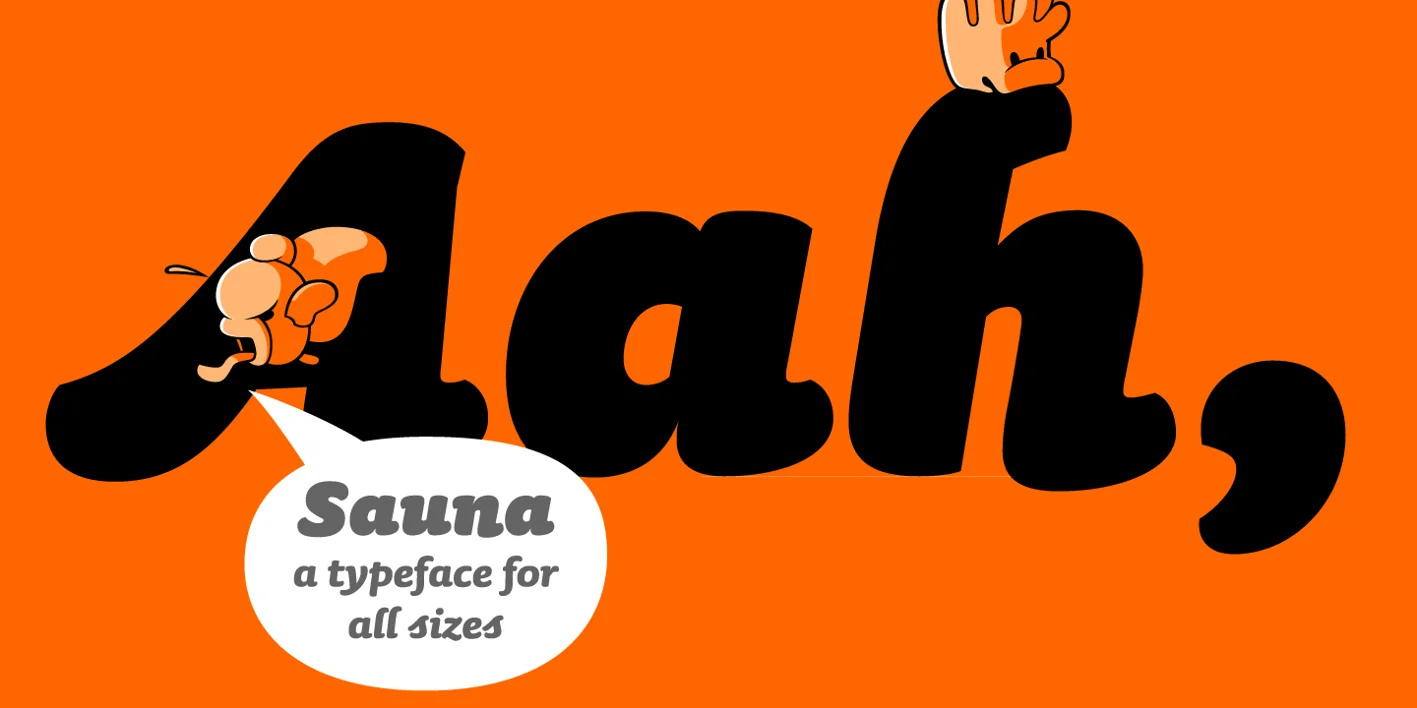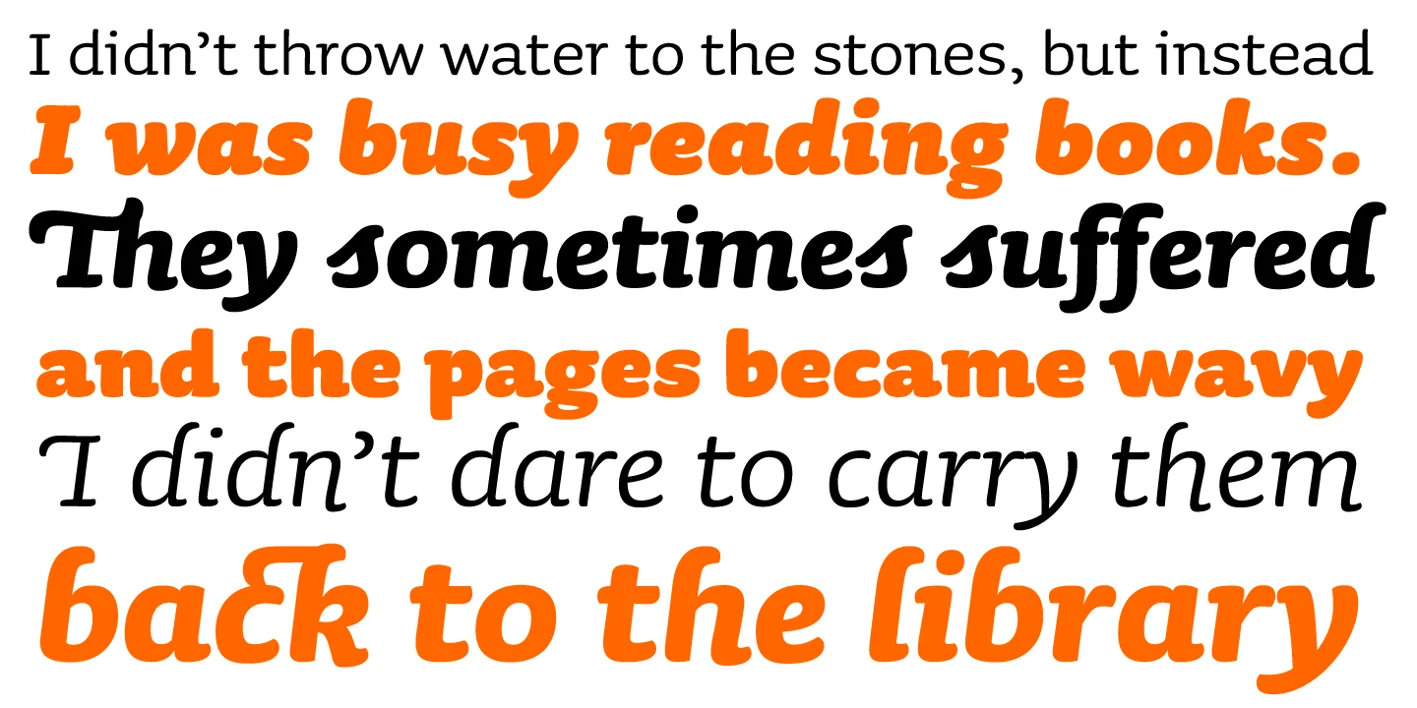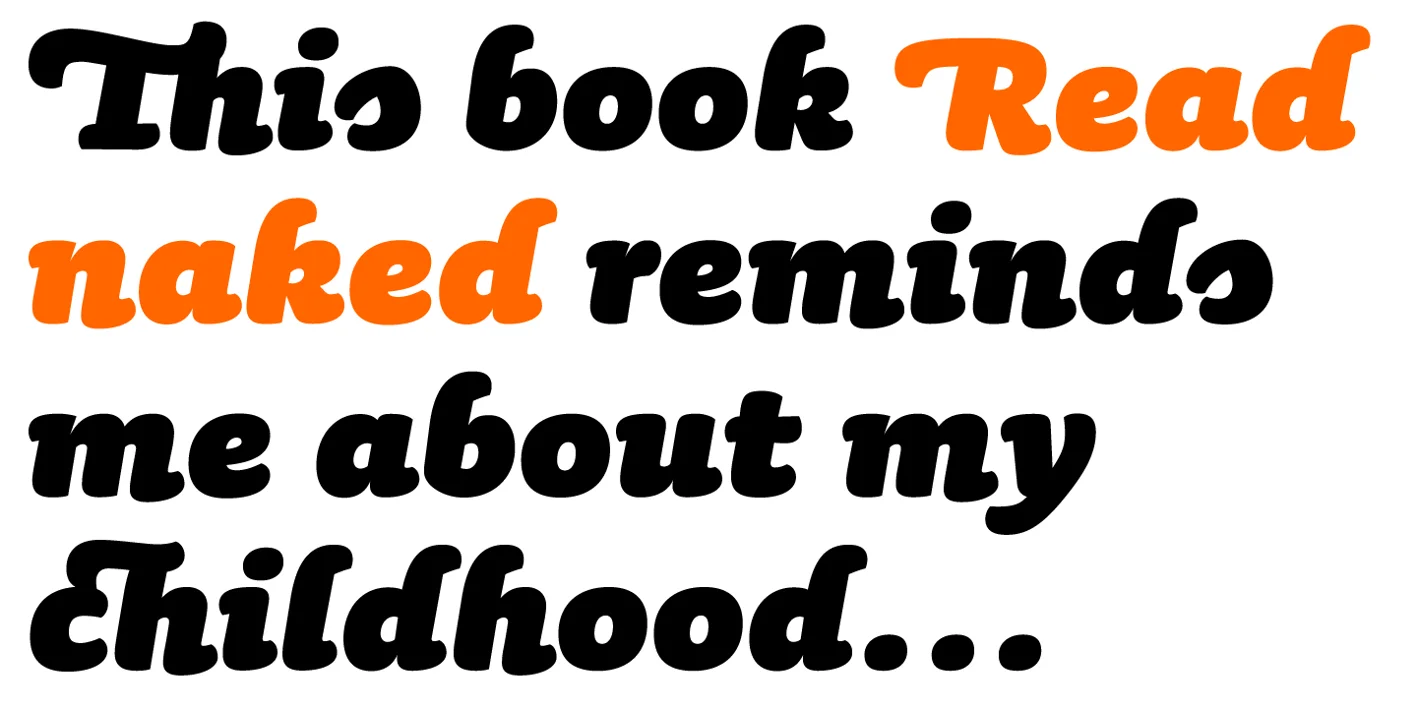
Sauna Pro Font
A good typeface communicates tone before a single word is read. Sauna Pro achieves this through controlled contrast that rewards close inspection. The typeface brings a versatile sensibility to a broad range of creative disciplines, with versatility across print and screen contexts that holds up whether the work is print-first or screen-first.
In practice, Sauna Pro proves particularly effective for advertising campaigns, product labels, signage systems, editorial layouts, annual reports. Designers reaching for it find that the type decisions feel resolved rather than laboured — a useful quality when client timelines are tight.
The proportions balance x-height, cap height, and ascender length to produce a face that reads confidently at body copy sizes without losing presence at display scale. Sidebearings were derived from visual rhythm testing rather than mathematical calculation alone.
The range of applications extends to web design, packaging design, logo design, poster creation. That breadth is deliberate: the proportions and spacing were stress-tested across a wide range of mock briefs before the typeface was finalised.
At smaller sizes the design retains its character without becoming cluttered. This resilience across scales makes Sauna Pro equally suitable for a business card and a billboard — a useful property when assets must scale across a campaign.
Graphic designers working on identity systems find Sauna Pro a reliable choice for projects that demand both personality and restraint. The design avoids the self-conscious quirkiness that dates quickly, settling instead for considered distinctiveness that holds up over time.